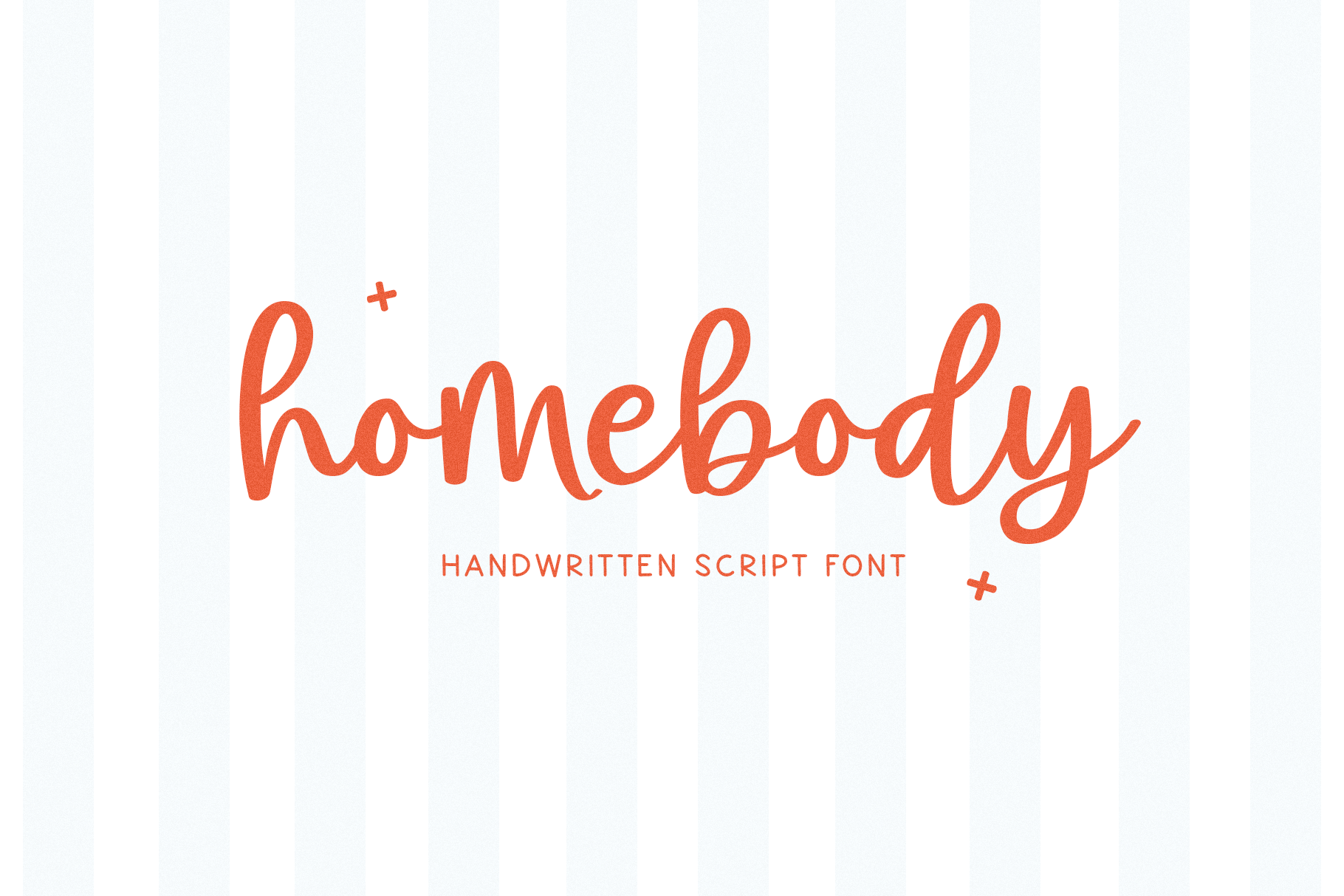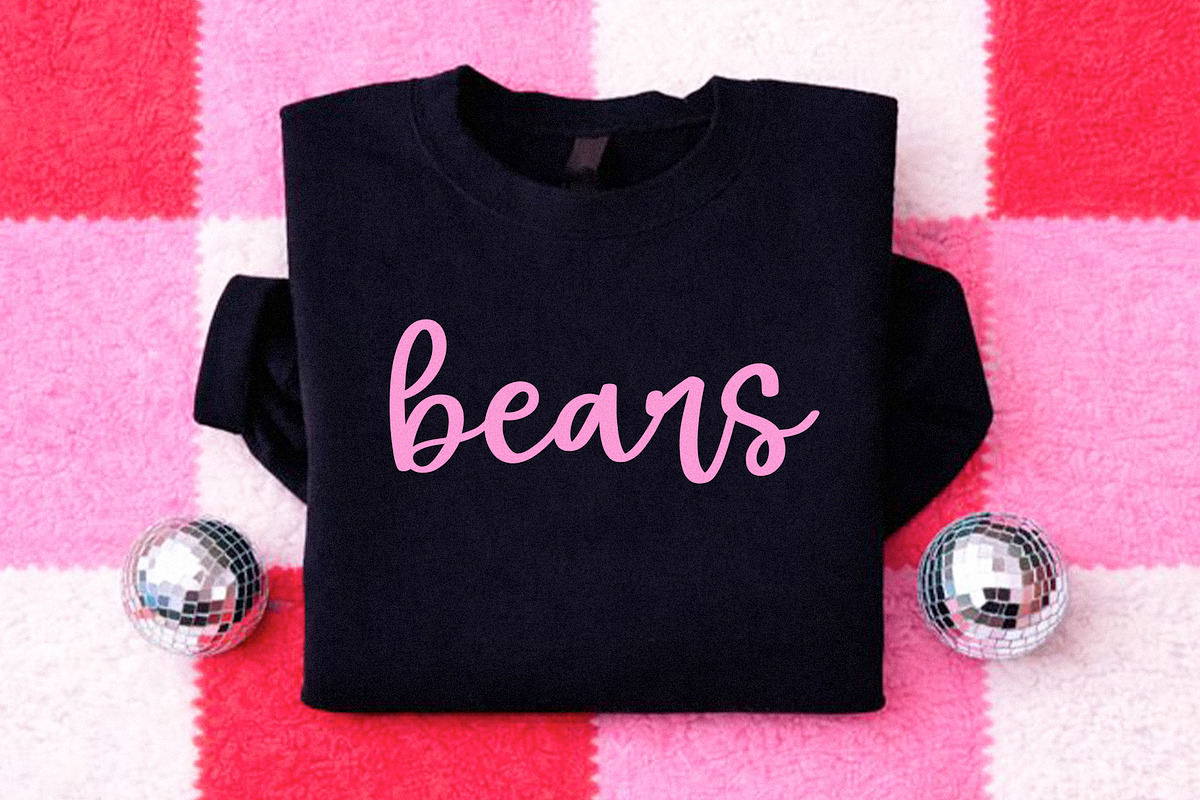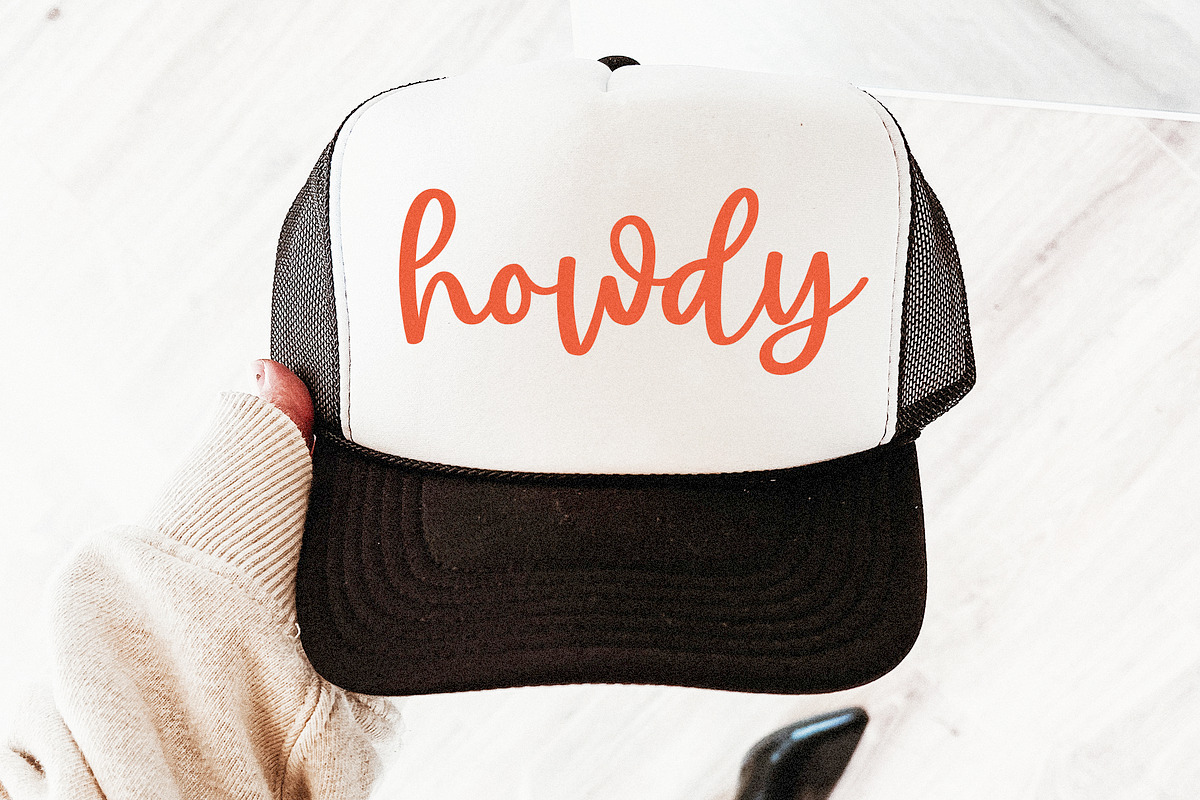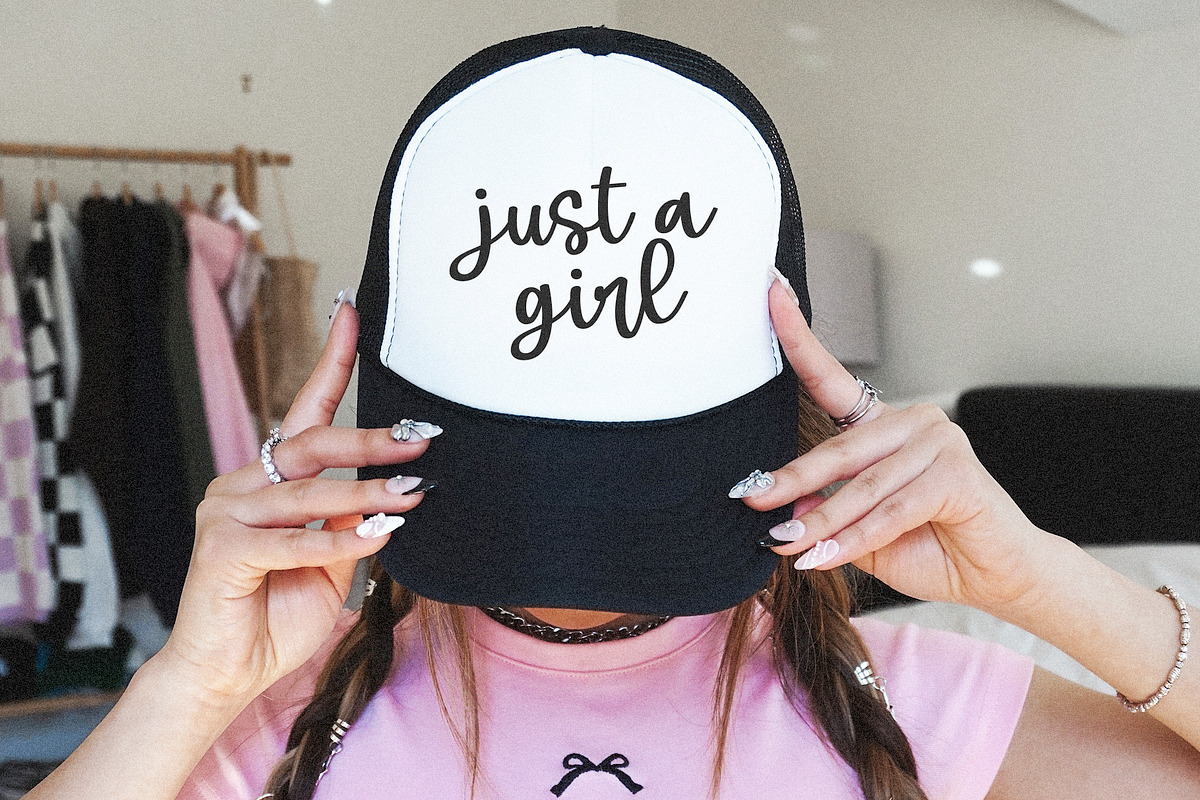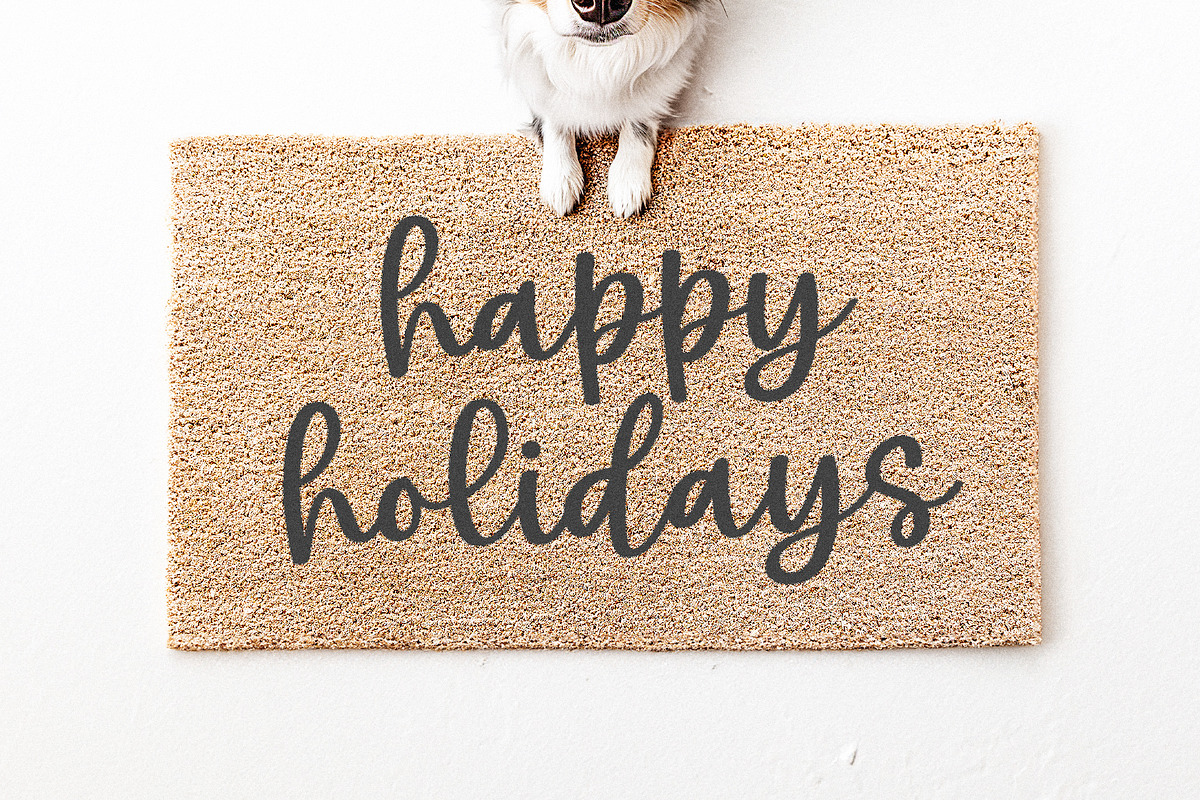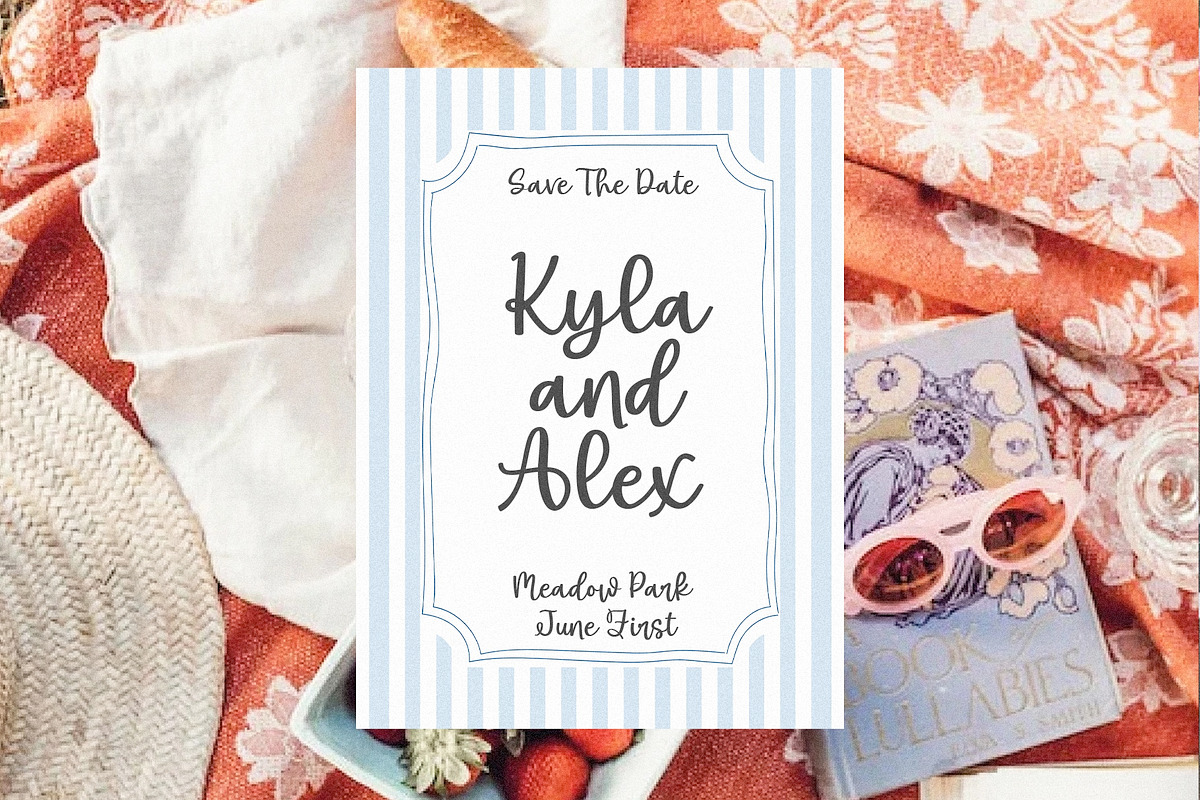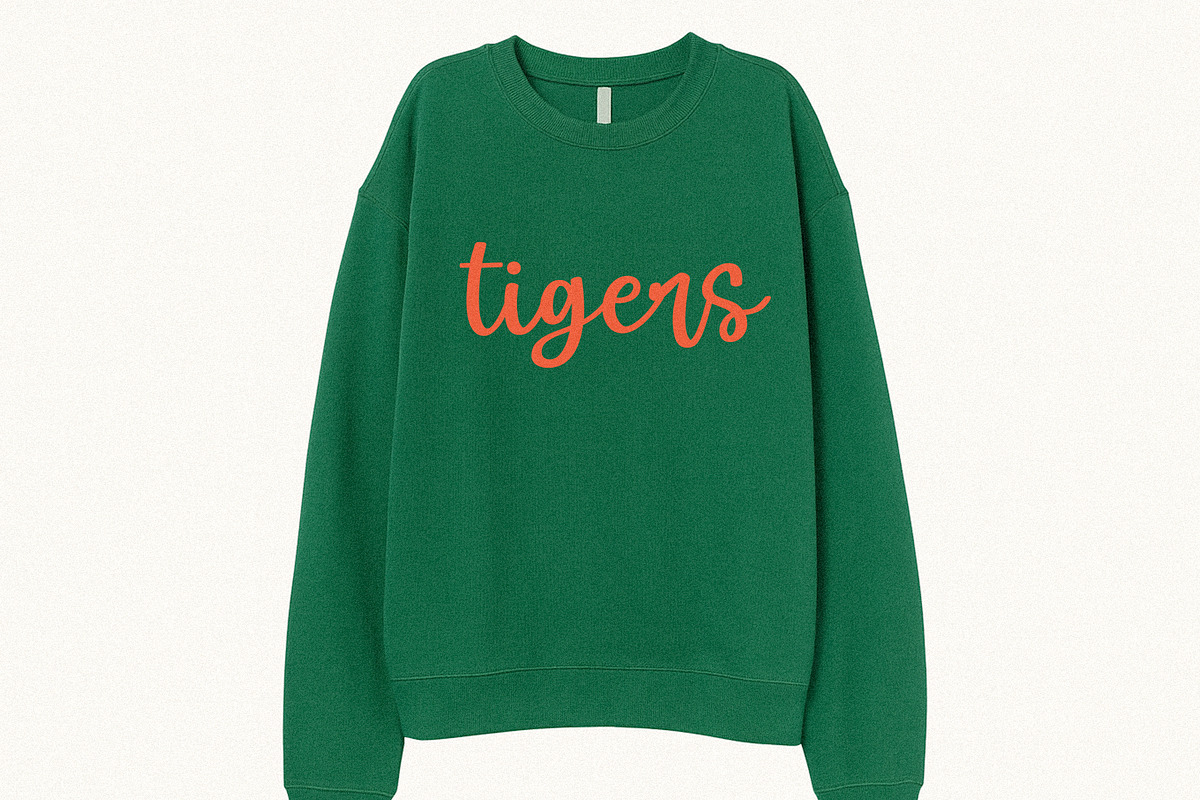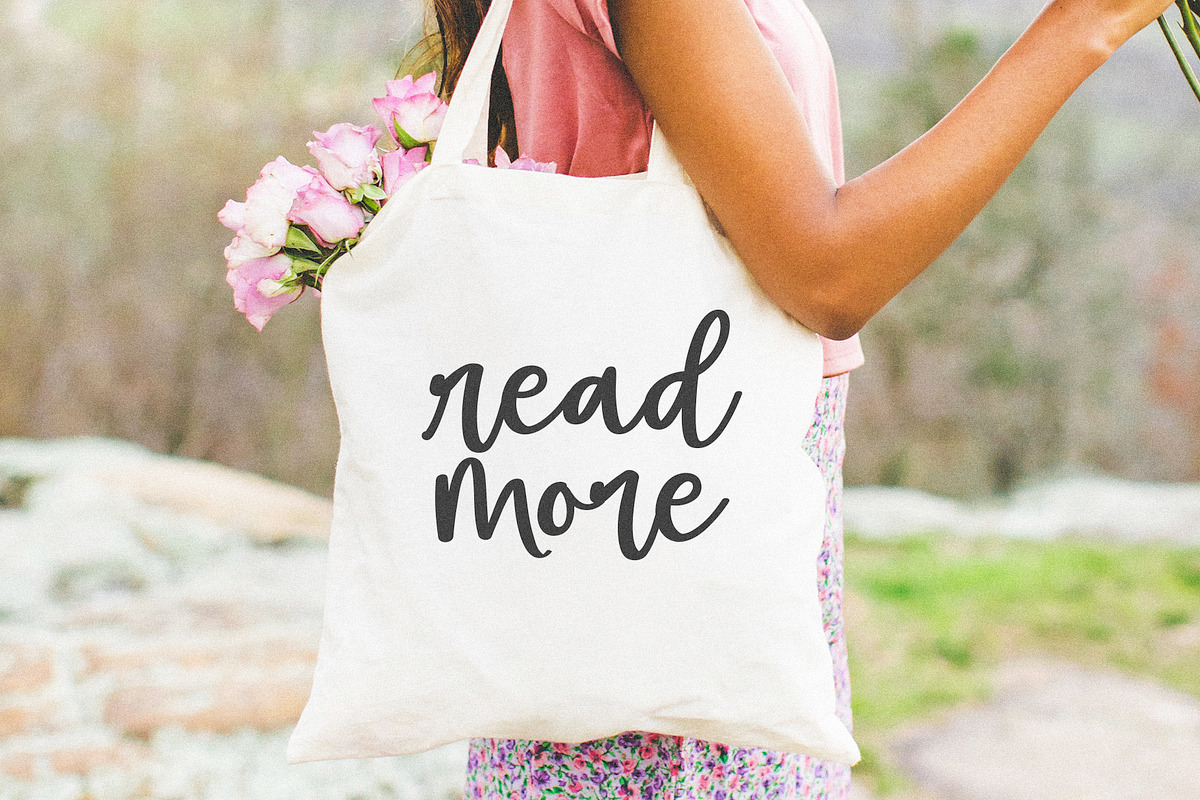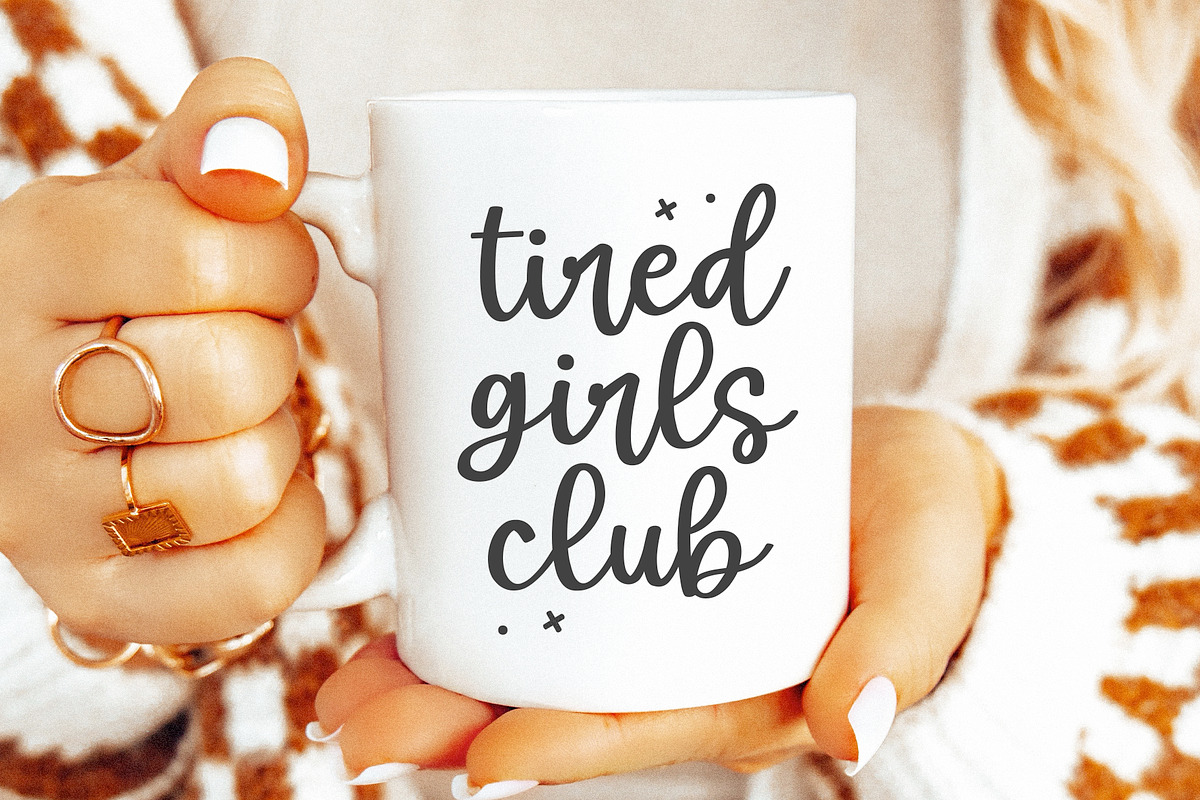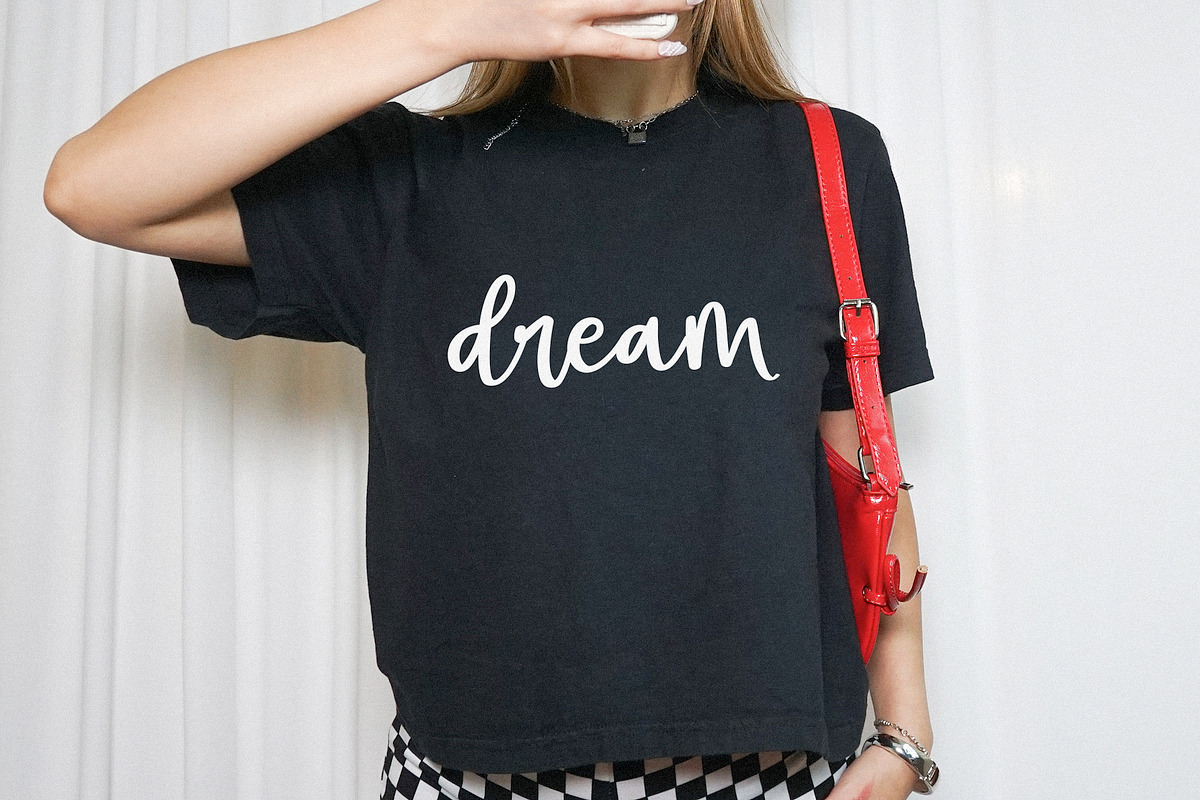
Homebody | Handwritten Script Font
Homebody is a casual handwritten script font.
This font is perfect for wedding decor, invitations, logos, cricut projects, painted banners, quotes and more!